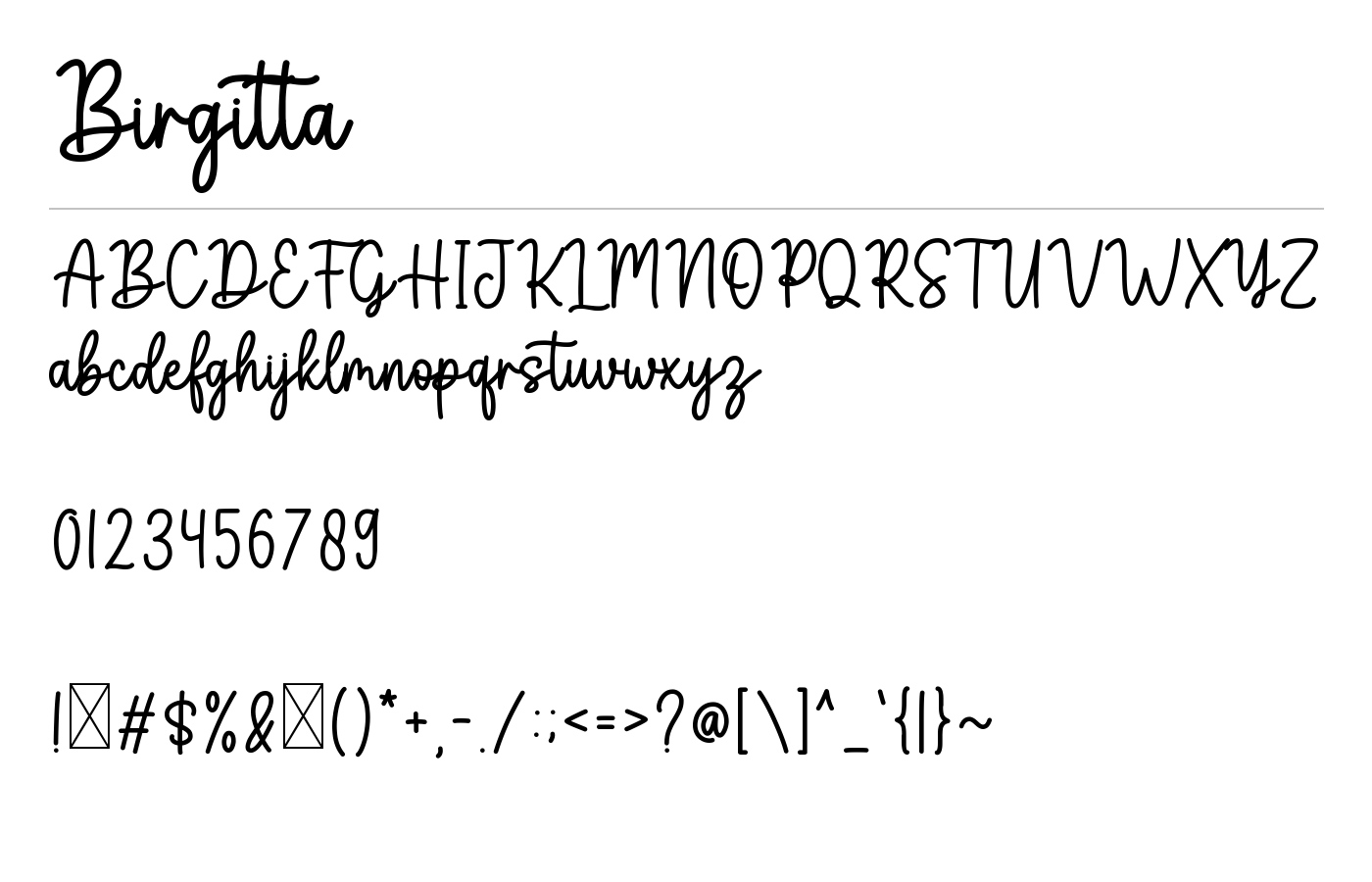
Birgitta is a playful and casual handwritten script font with a lively, flowing style that feels friendly and approachable. Its slender, slightly tall letterforms and smooth curves make it ideal for creative projects, informal branding, and personal invitations where a warm, personal touch is desired. This font works best for logos, social media graphics, and headlines that aim to evoke charm and individuality.
Birgitta Font
About Birgitta Font